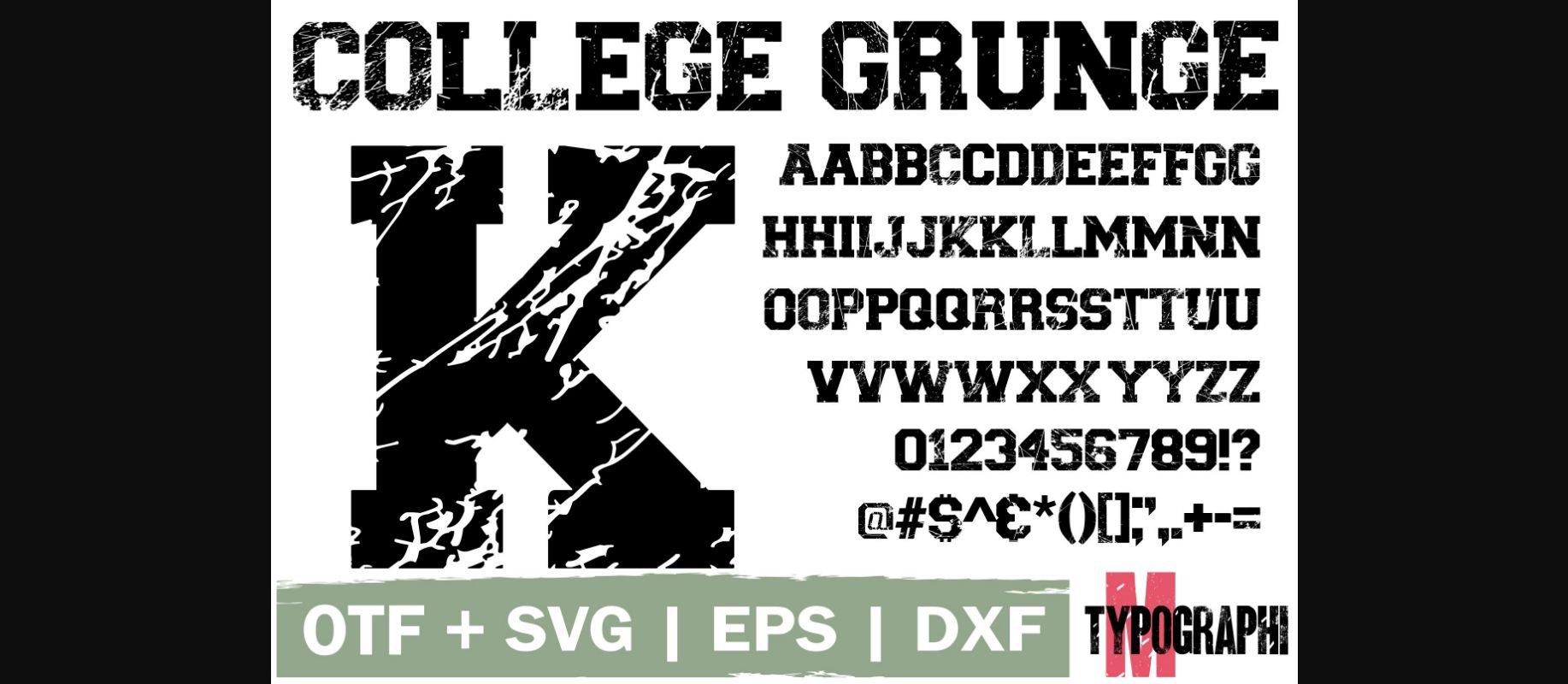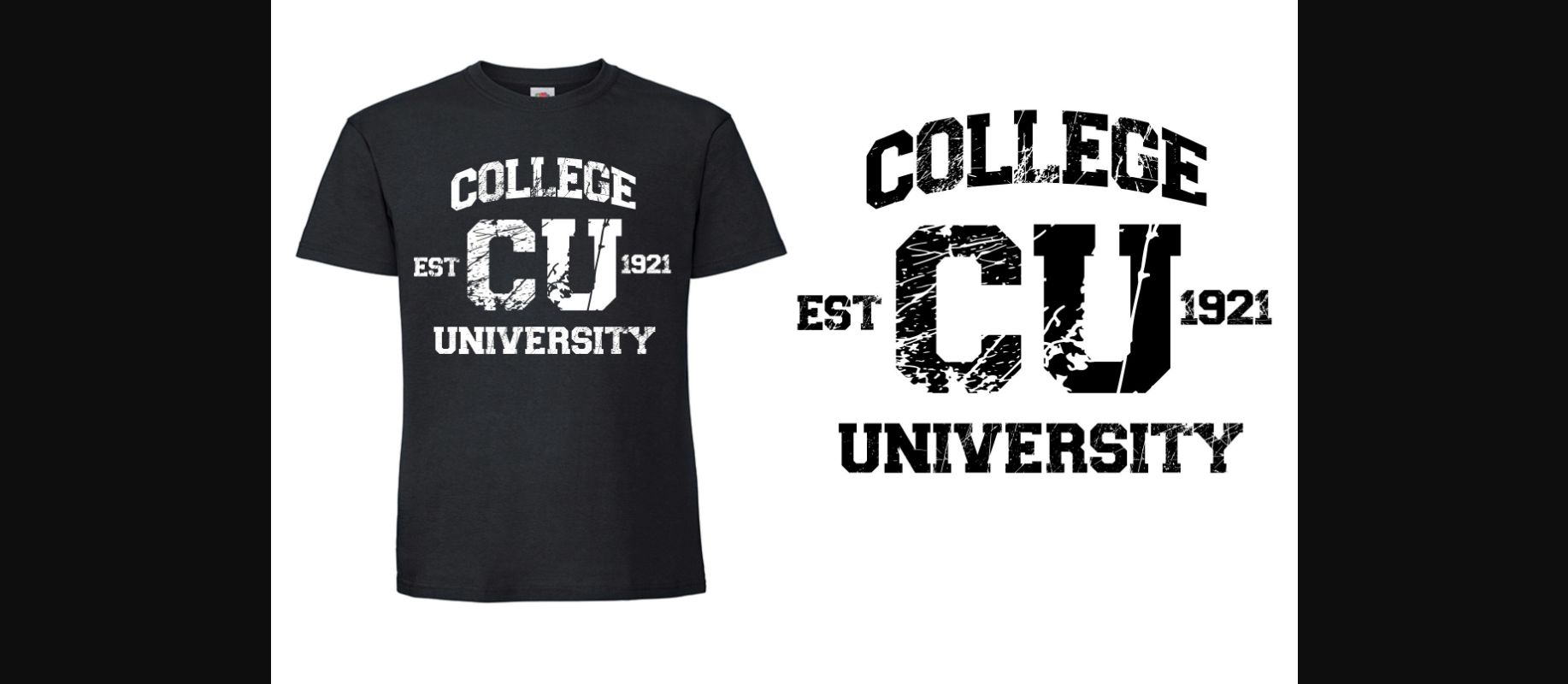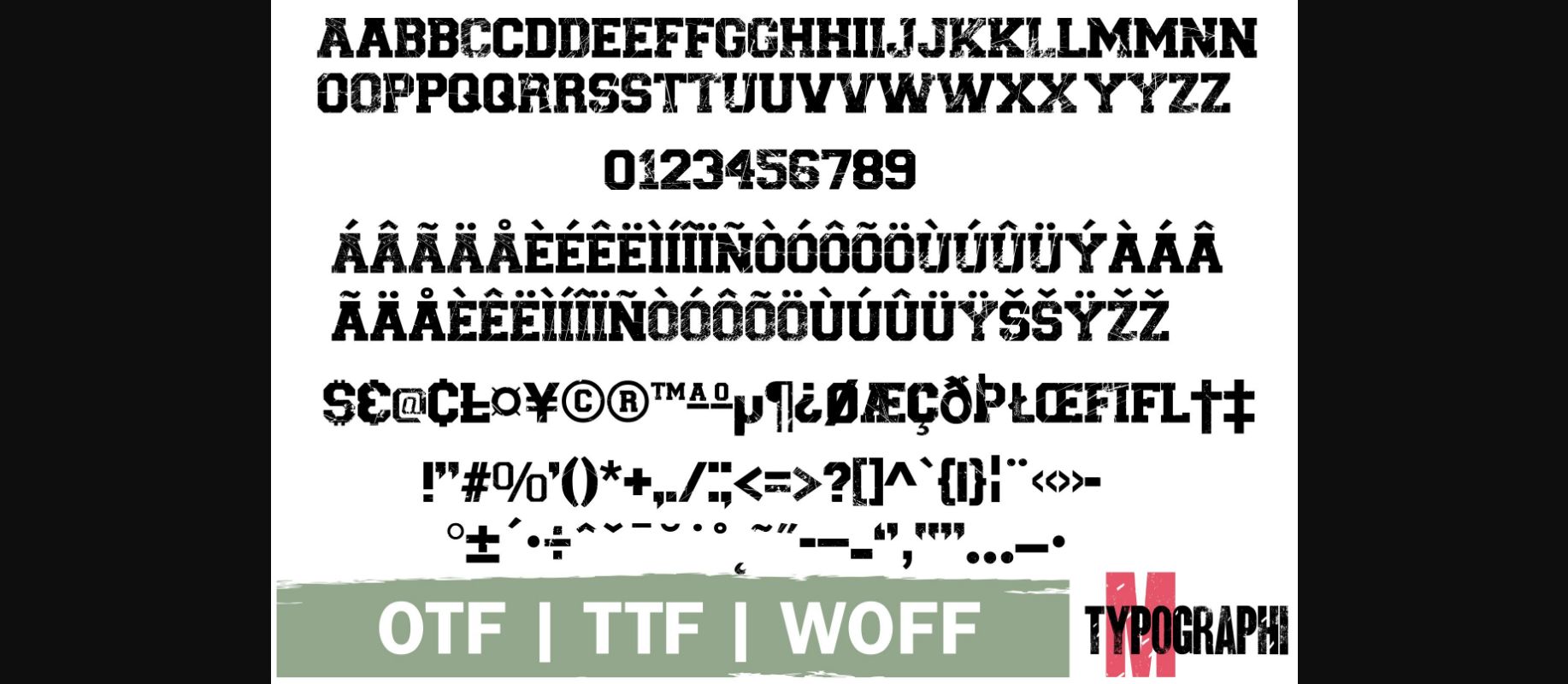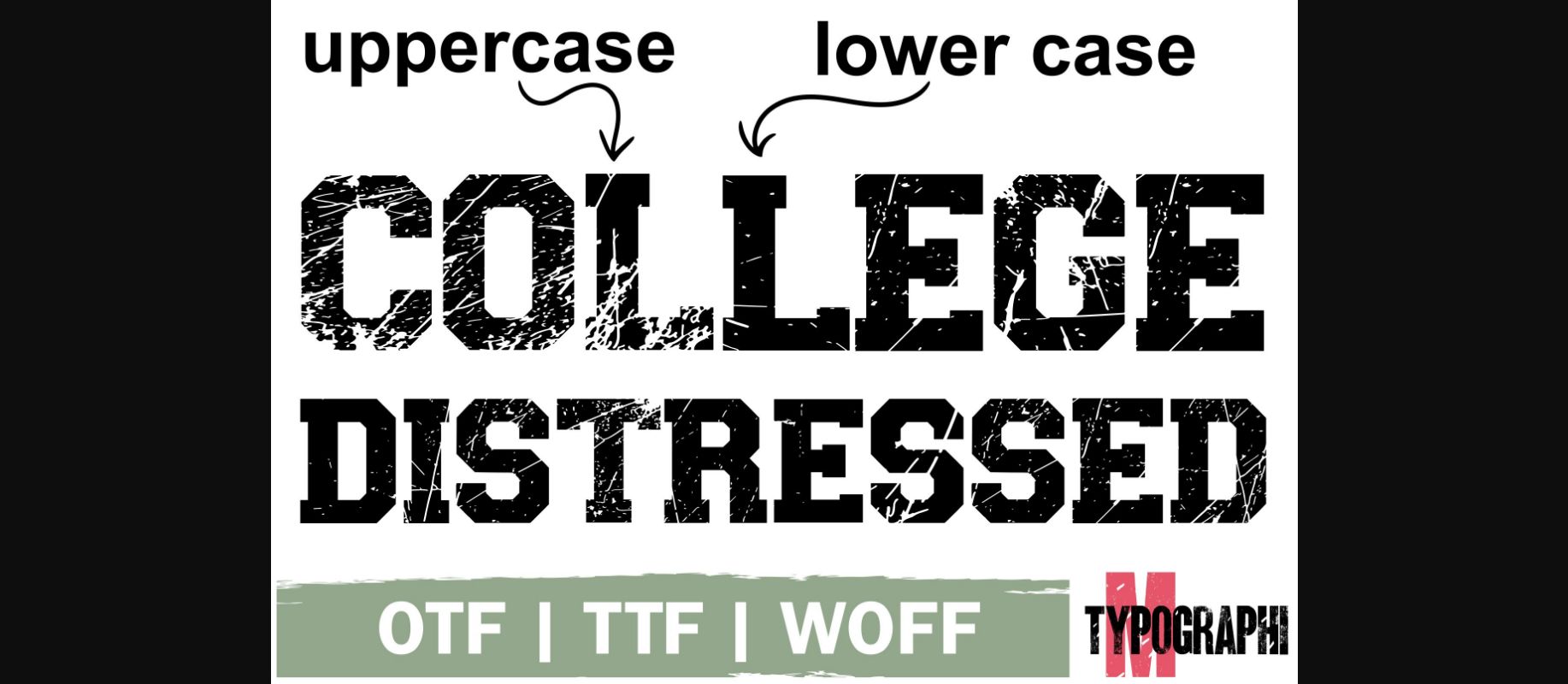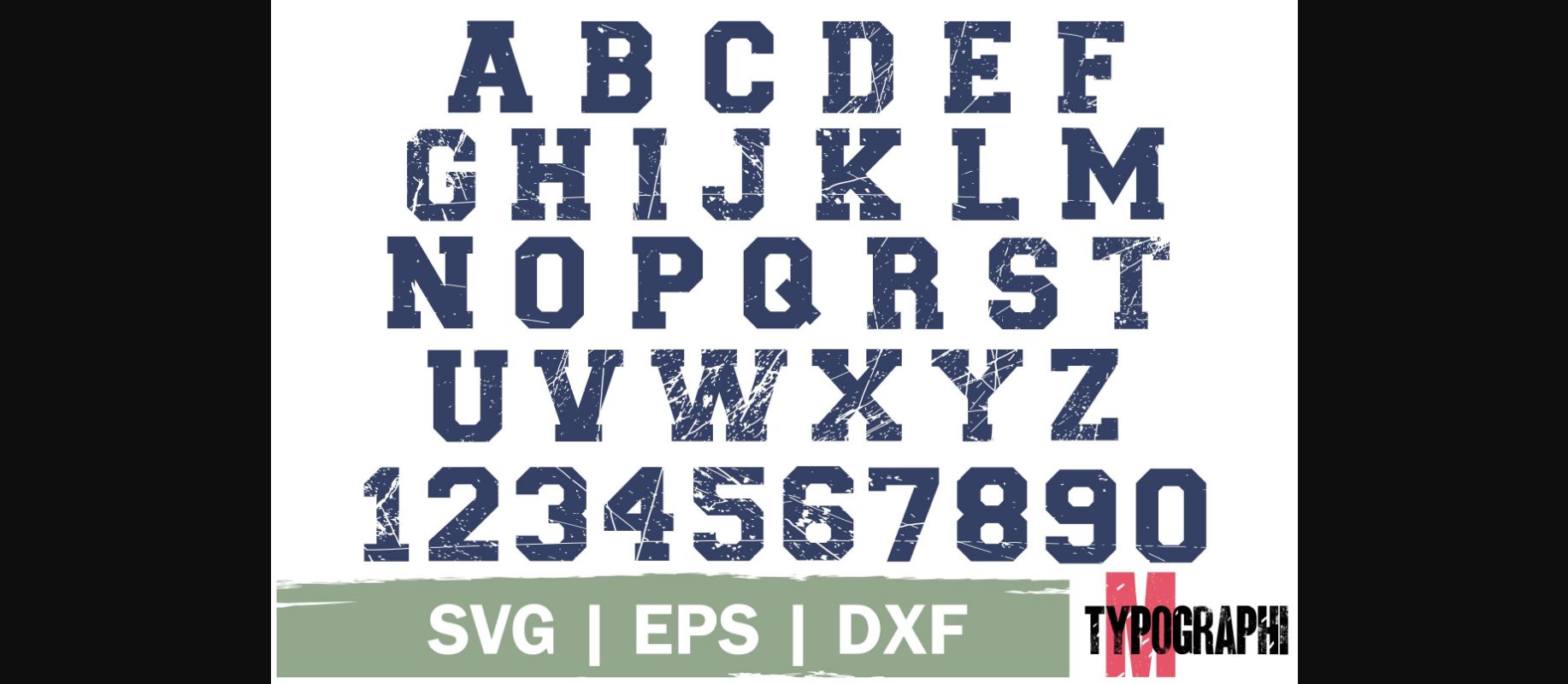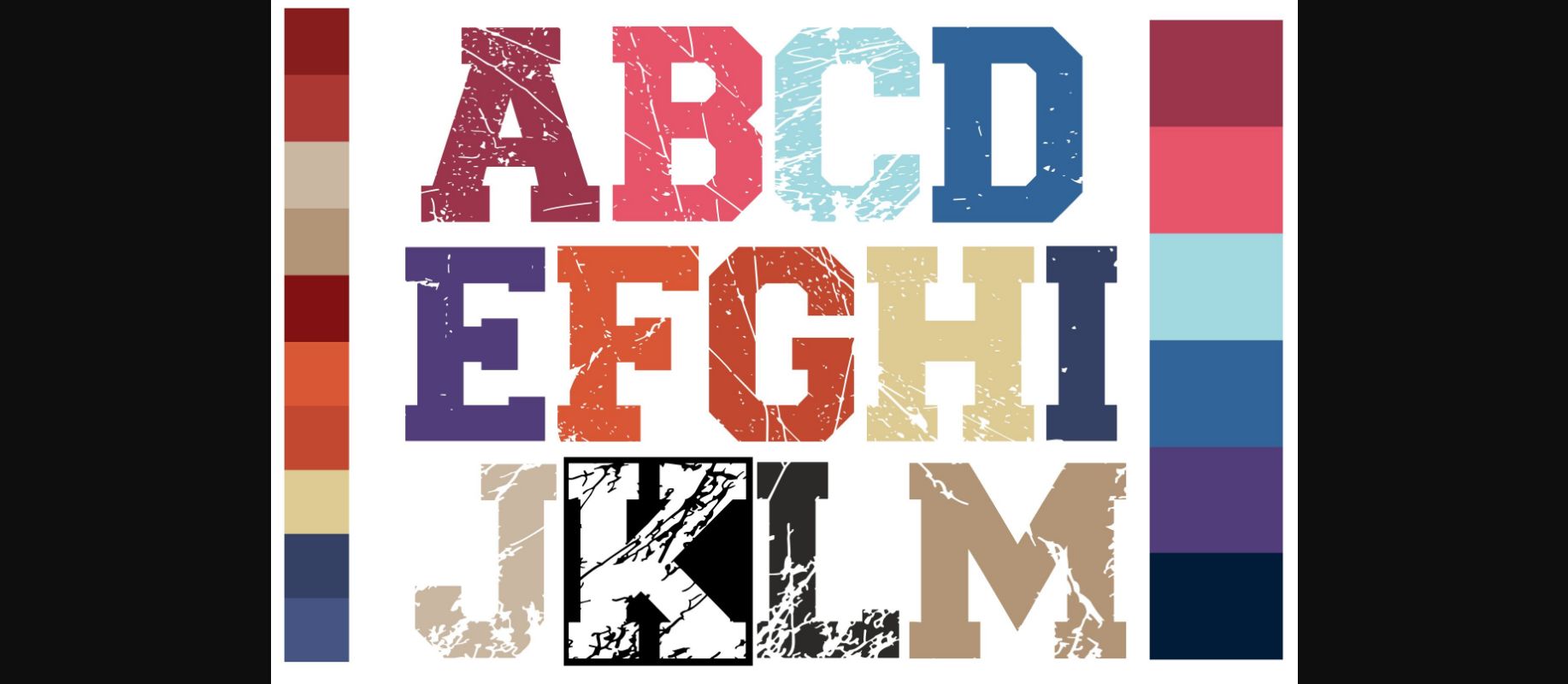
About College Grunge Font
College Grunge is a spectacular decorative font. Make you next designs stand out with this amazing font.
It will be perfect for college and school projects, t-shirt designs, posters and much more.